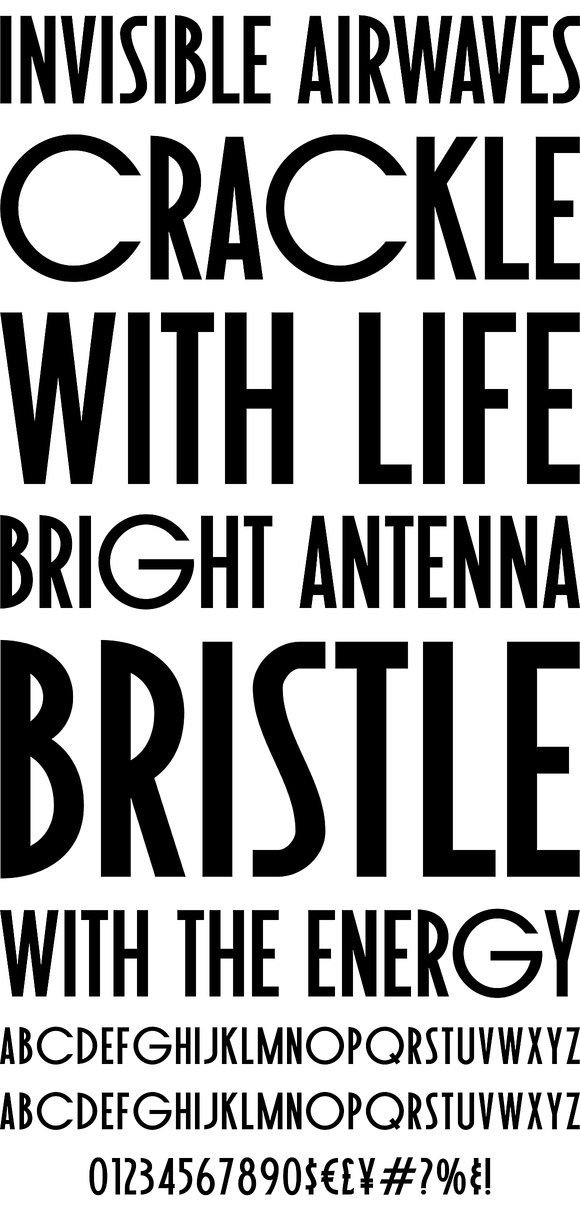
Toasted Vein is a tight deco all caps typestyle complete with regular, bold, a collegiate inline, and a drop shadow style, offering more range than a traditional art deco font. Perfect for logos, titling, and headlines.